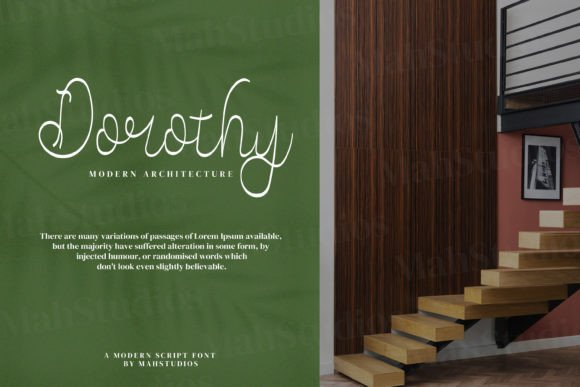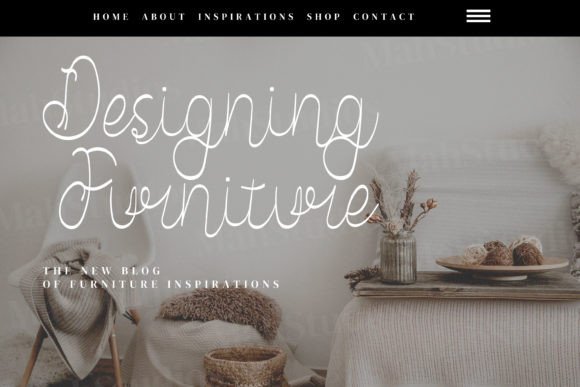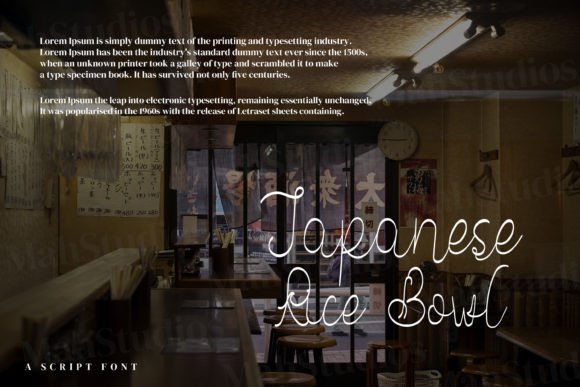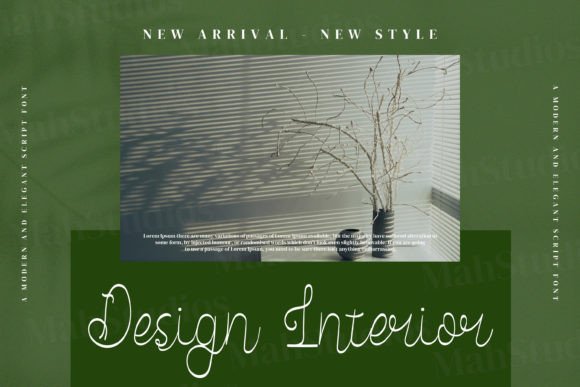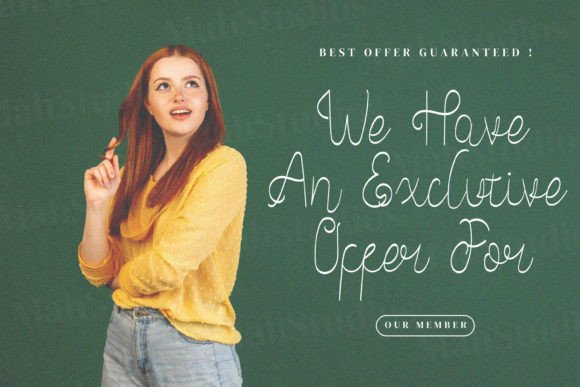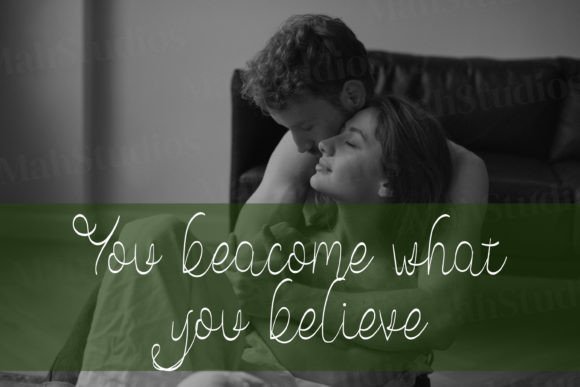
Unleash the Artistry: Discover the Timeless Elegance of the Abjoccy Font
As a designer, have you ever found yourself pouring over a blank page, searching for the perfect font to bring your vision to life? The search is over. Imagine being able to add a touch of sophistication and elegance to your next project, elevating it from mere design to masterpiece.
Enter the Abjoccy Font, a stunning handwritten font that embodies the perfect blend of fluidity and refinement. With its exquisite lines and curves, this font is a testament to the artistry and craftsmanship that went into its creation. As a valuable tool for designers, the Abjoccy Font offers endless possibilities for creative expression, from elegant typography to stylish branding.
What sets the Abjoccy Font apart is its PUA encoding, making it easy to access the amazing glyphs and ligatures that bring this font to life.
Abjoccy Font Key Features
- Unique Character Set: Abjoccy Font features a unique set of characters, including alternate glyphs, ligatures, and swashes, adding a touch of elegance to your designs.
- High-Quality Glyphs: The font includes high-quality glyphs, carefully crafted to ensure precise rendering and optimal legibility.
- Support for Multiple Languages: Abjoccy Font supports a wide range of languages, including Latin, Cyrillic, and Greek alphabets, making it a versatile choice for global designs.
- Smooth and Elegant Appearance: The font’s smooth, flowing lines and subtle flourishes create a sophisticated and refined appearance, perfect for luxury brands and high-end designs.
Abjoccy Font Review
As a designer, I was excited to dive into the world of Abjoccy Font. Here’s my honest take on this font.
- Unique aesthetic: Abjoccy Font has a distinct, quirky feel that can add a touch of personality to designs.
- High-quality glyphs: The font includes a wide range of glyphs, including ligatures and alternates, which can be useful for creatives who want to add an extra layer of detail.
- Good legibility: Despite its unconventional design, Abjoccy Font is relatively easy to read, making it suitable for body text and longer passages.
- Limited font weights: Abjoccy Font is available in only a few weights, which may limit its versatility in certain design contexts.
- No clear direction: The font’s style is somewhat inconsistent, which can make it difficult to use effectively in a variety of projects.
Overall, I think Abjoccy Font has potential, but it needs refinement to truly shine. With a bit more attention to detail and consistency, this font could be a real showstopper. As it stands, it’s a solid choice for creatives who want to add a touch of whimsy to their designs.
Abjoccy Font is ideal for creating eye-catching headings and titles in your Canva designs.
Abjoccy Font is perfect for adding a touch of elegance to your graphics and illustrations.
Abjoccy Font is great for creating professional-looking presentations and documents.
Abjoccy Font is ideal for:
- Headings and titles
- Illustrations
- Documents